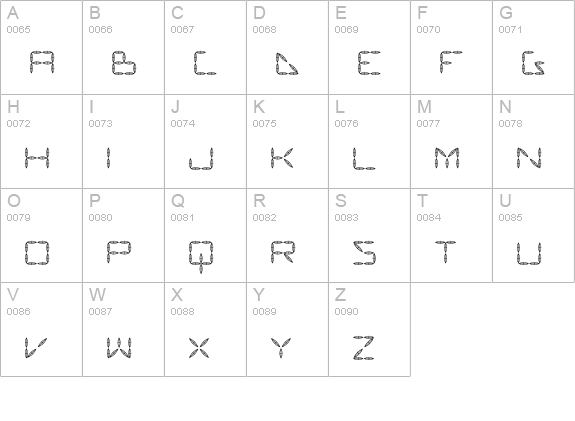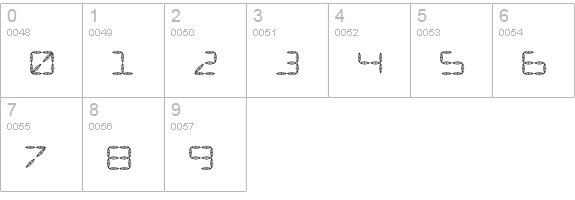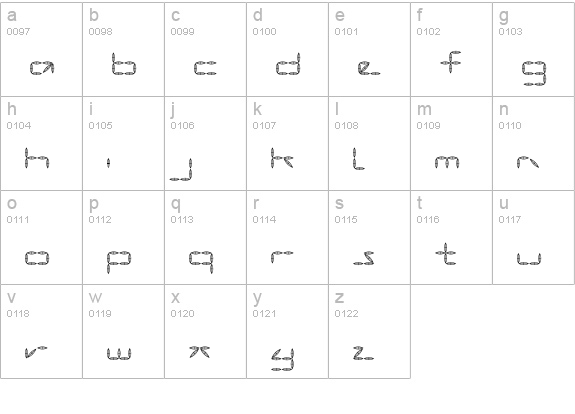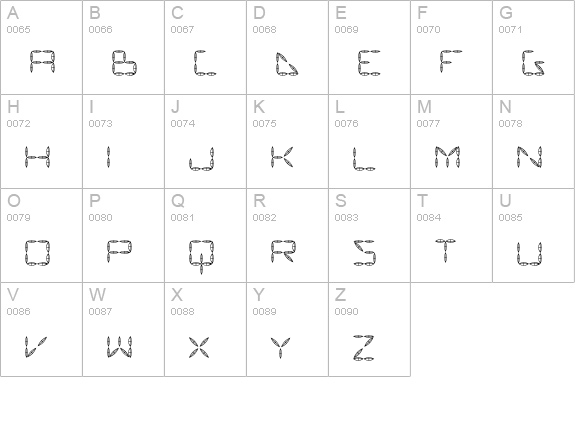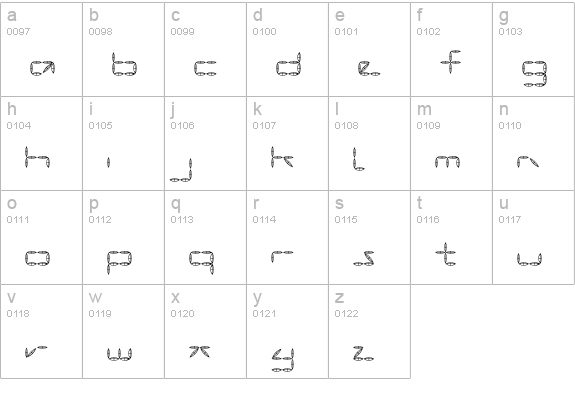
Vanguard III AOE Font Details
Introducing Vanguard III AOE, a stunning and versatile font that is guaranteed to elevate your design projects to new heights. This magnificent typeface boasts an array of captivating features that make it a true standout in the world of typography. With its bold and dynamic letterforms, Vanguard III AOE commands attention and exudes a sense of strength and power. Whether you're working on a logo, branding, packaging, or any other design endeavor, this font will effortlessly captivate your audience and leave a lasting impression. But what sets Vanguard III AOE apart from the rest is that it is not just visually striking, but also freely available to download. Yes, you heard that right – this extraordinary font can be yours at no cost. Simply head over to FontsMarket.com, and with just a few clicks, you can add this exceptional typeface to your collection without spending a dime. Once you have Vanguard III AOE at your fingertips, the creative possibilities are endless. Its versatility allows it to seamlessly adapt to various design themes and concepts, making it suitable for a wide range of projects. Whether you're aiming for a modern and edgy look or a classic and timeless feel, this font has got you covered. Furthermore, Vanguard III AOE's attention to detail is second to none. Each letter has been meticulously crafted to ensure perfect legibility and readability, no matter the size or scale of your design. Its clean lines and well-balanced proportions make it a joy to work with, allowing your message to shine through effortlessly. So why wait? Don't miss out on this incredible opportunity to enhance your design projects with Vanguard III AOE. Download it for free today at FontsMarket.com and unlock a world of creativity and endless possibilities. Whether you're a professional designer or a creative enthusiast, this font is a must-have addition to your toolkit. Embrace the power of Vanguard III AOE and elevate your designs to extraordinary levels.